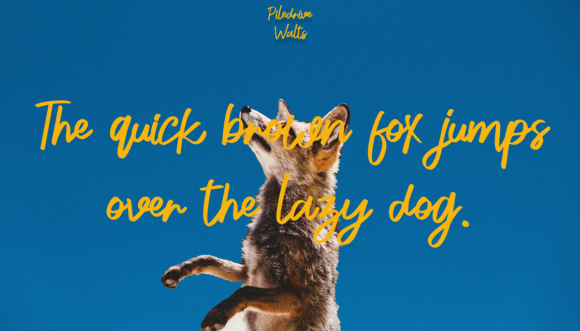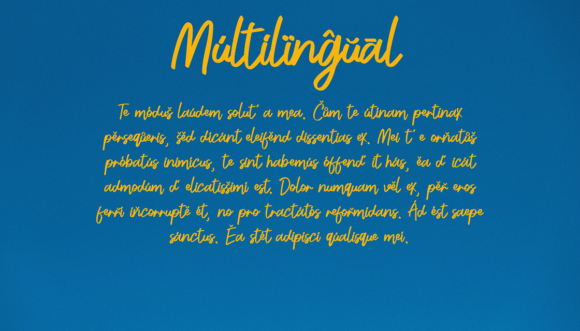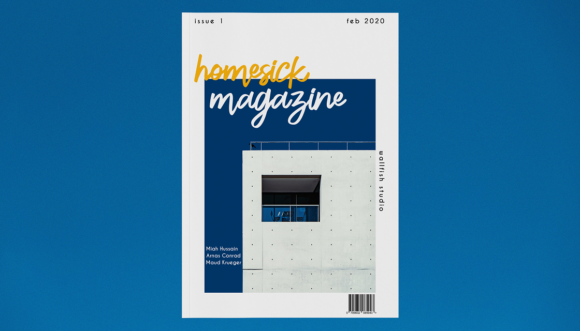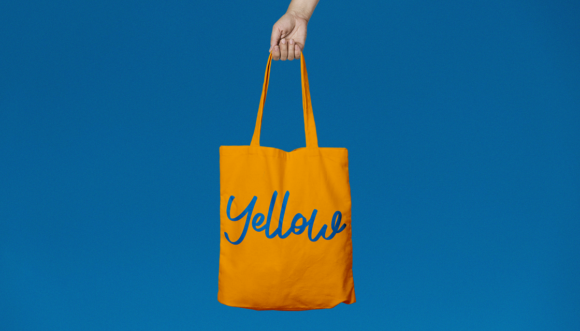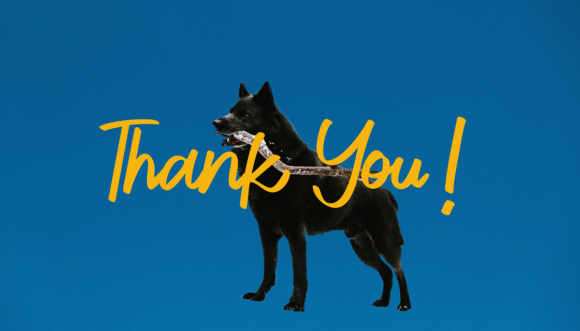
Introduction to Piledrive Walts Font
Remember that moment when you stumbled upon the perfect font for your creative project? The one that instantly elevates your design and sets the tone for your entire aesthetic? For designers, finding the right font can be a game-changer, and that’s exactly what we’re excited to share with you today – the Piledrive Walts Font.
This free download has been gaining popularity among designers for its unique charm and authentic feel. With its playful brush script style, it’s perfect for adding a touch of whimsy to your designs. Plus, with a transparent background, you can easily overlay it on any image or texture, giving you endless possibilities for creative experimentation.
Whether you’re working on a high-quality design project or simply need a reliable design resource, the Piledrive Walts Font is sure to become a valuable addition to your toolkit.
Key Features of Piledrive Walts Font
- High-quality, unique font design suitable for creative projects and design resources.
- Transparent background, allowing for easy customization and versatility in design applications.
- Comes in a single weight, ideal for designers who want a clean and simple font for their creative projects.
- Designed to be highly legible, making it perfect for use in a variety of design contexts, from titles to body text.
Honest Review: Piledrive Walts Font
I recently had the opportunity to work with the Piledrive Walts Font, and I must say it’s been a great addition to my design resource library. The font is perfect for creative projects that require a unique and high-quality touch. One of the things that stands out about this font is its versatility – it’s suitable for both digital and print designs, making it a great asset for any designer.
- ✨ High-quality font with a wide range of characters and glyphs.
- ✨ Transparent background, allowing for seamless integration into any design project.
While the Piledrive Walts Font is an excellent choice for many designers, there are a few limitations to consider:
- ⚠️ Limited support for certain languages and scripts.
- ⚠️ May not be suitable for very small text sizes due to its condensed style.
Overall, I’m very impressed with the Piledrive Walts Font. Its unique style and high-quality design make it an excellent choice for any creative project. With a little planning and consideration of its limitations, I believe this font can be a valuable addition to any designer’s toolkit.
Common Use Cases and Tips
The Piledrive Walts Font is perfect for a variety of creative projects, including graphic design, digital art, and typography. To get the most out of this font, try experimenting with different font sizes, styles, and colors to create unique and visually appealing designs. You can also use this font in combination with other design elements, such as images and shapes, to add depth and interest to your designs.